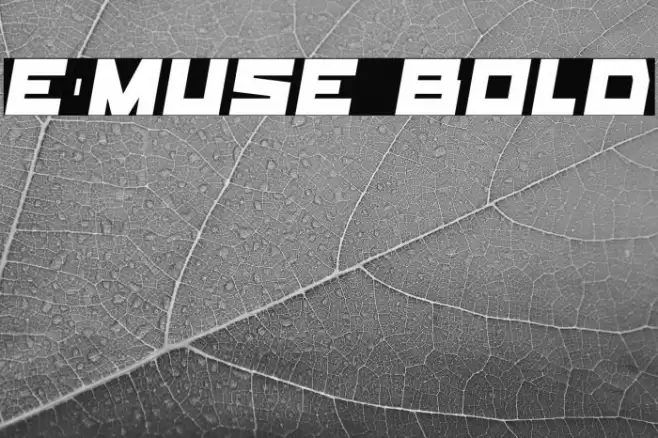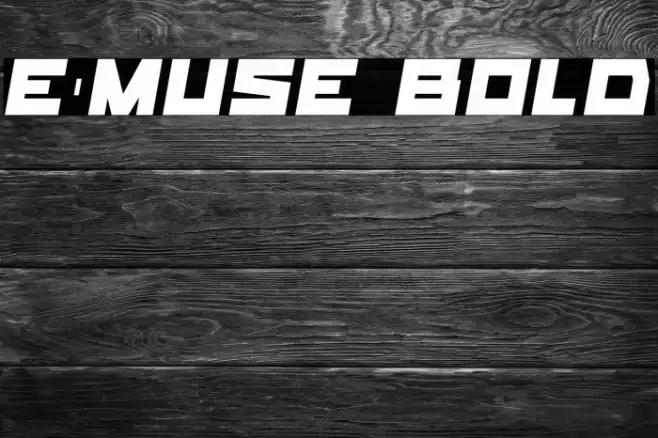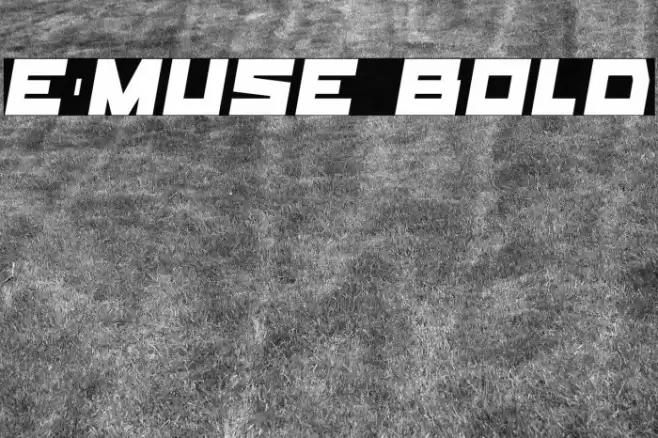
E-Muse Bold Font
E-Muse Bold Description
This font features a bold, angular design with a futuristic and dynamic appearance. The characters are sharply cut with a forward-leaning slant, giving a sense of motion and speed. The uppercase letters are uniform in height, creating a cohesive and structured look. The numbers and special characters maintain the same bold and angular style, ensuring consistency across all glyphs. The overall design is striking and modern, suitable for projects that require a strong visual impact.
- Proposed Projects: Ideal for sports branding, technology logos, video game titles, and dynamic posters.